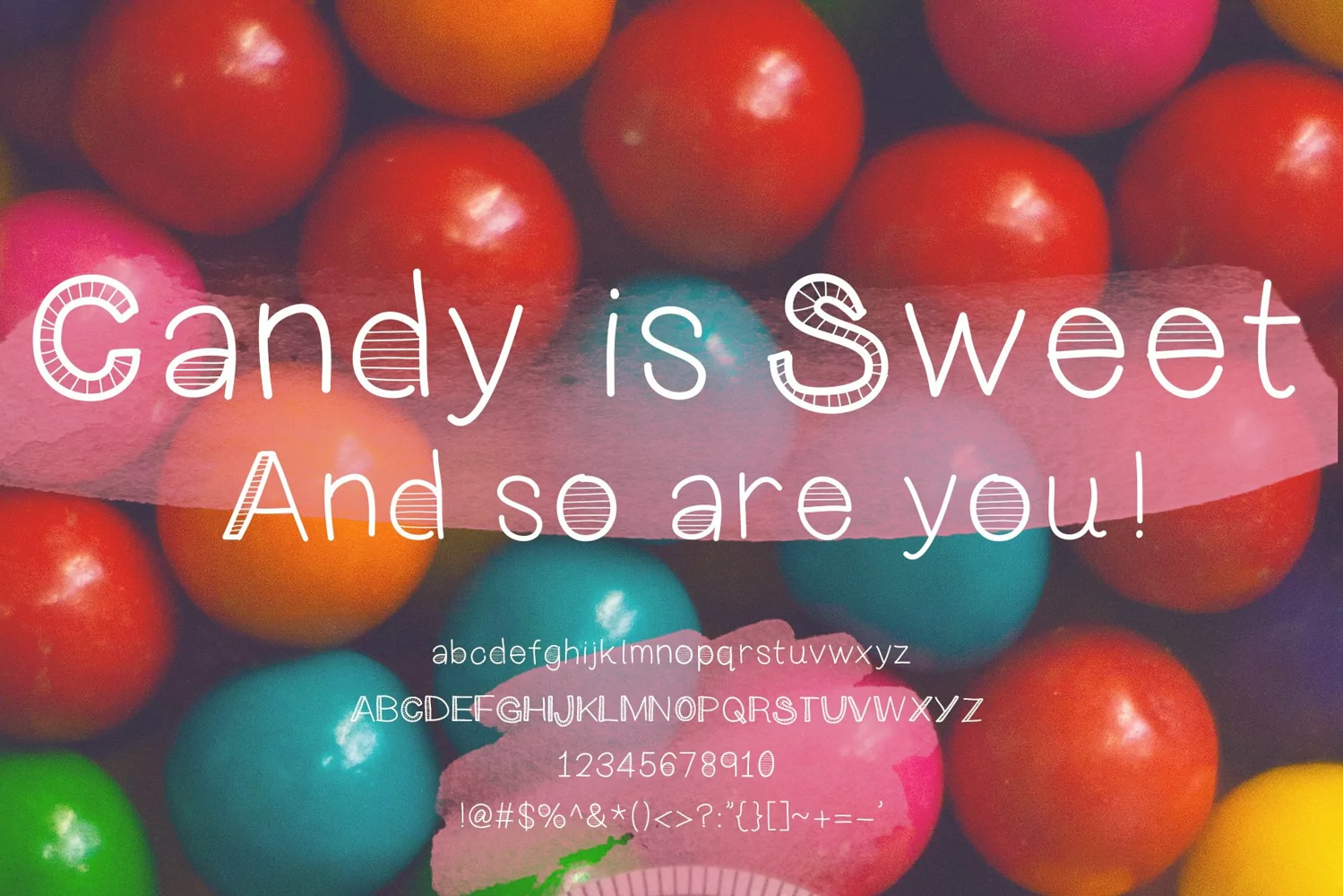
Keen On You a quirky, handwritten font with skinny lines
This quirky, hand written font is keen on you! Use it to add a touch of fun and whimsy to any project, product, logo and more. Makes a great font for children's decor. Includes all upper and lower case letters, numbers and most popular glyphs including the Euro, Pound and Cent signs.